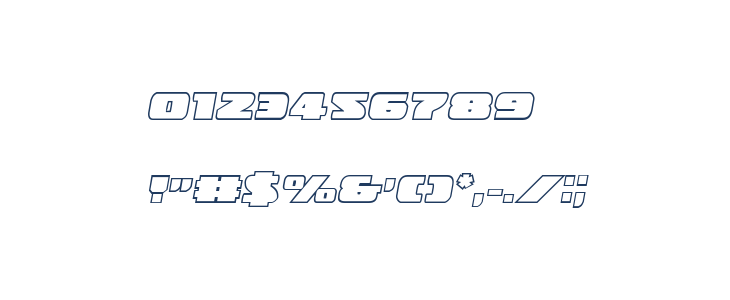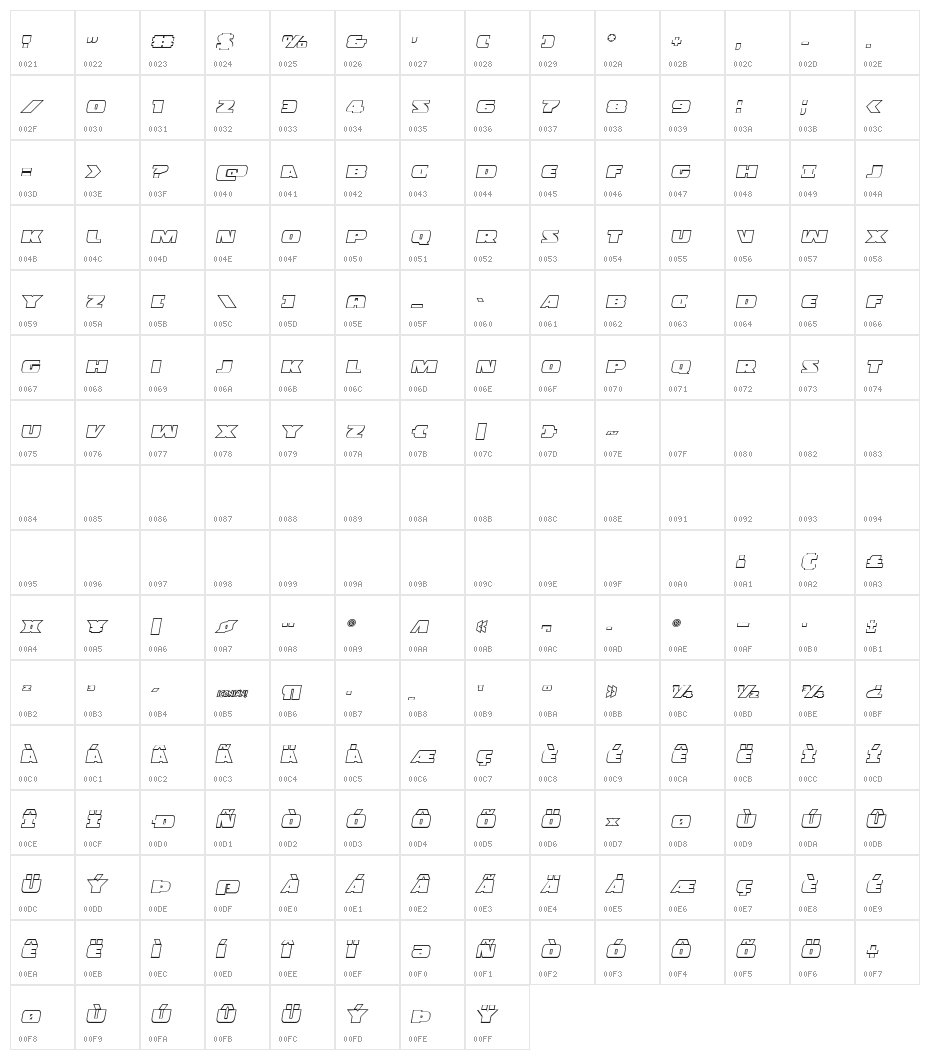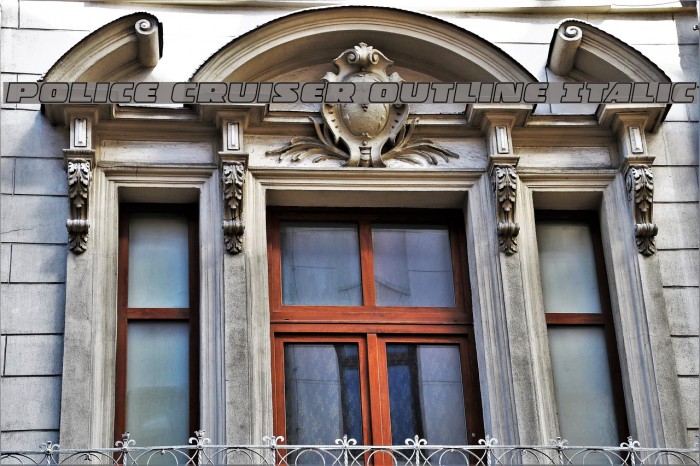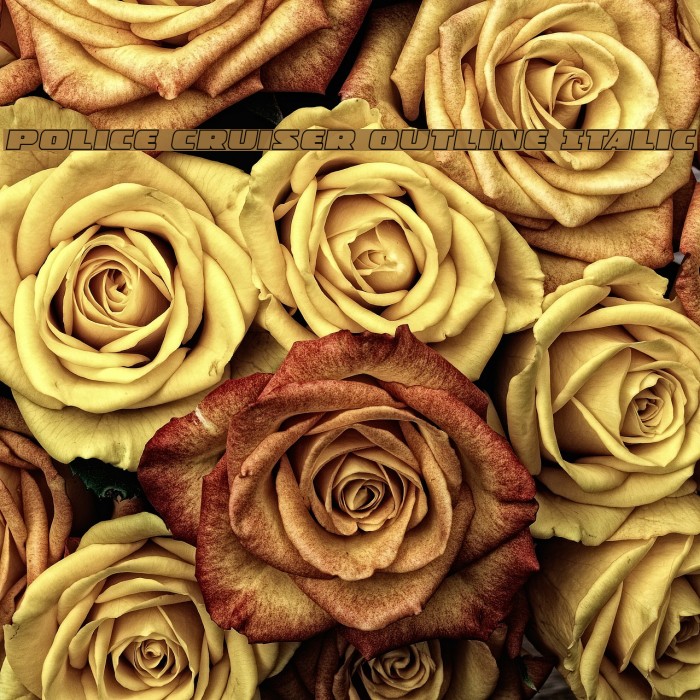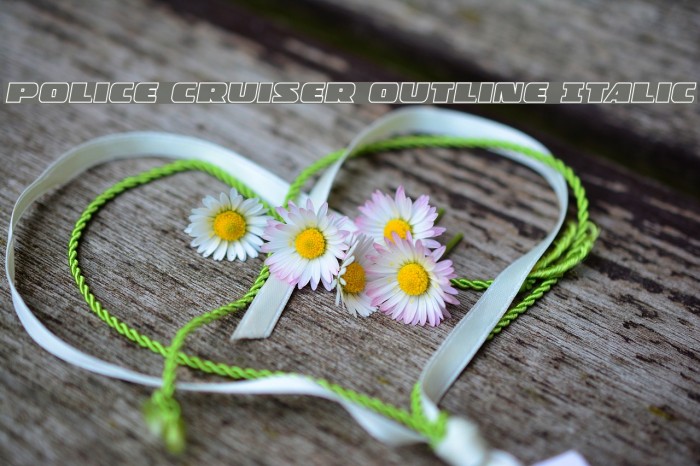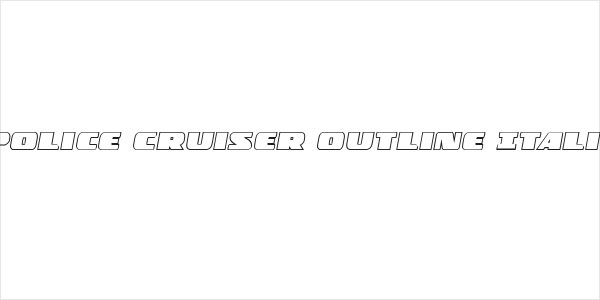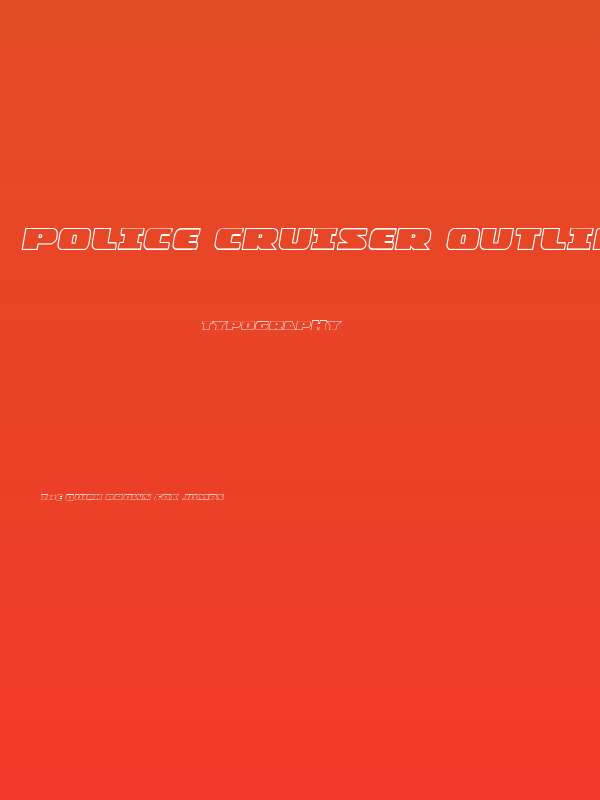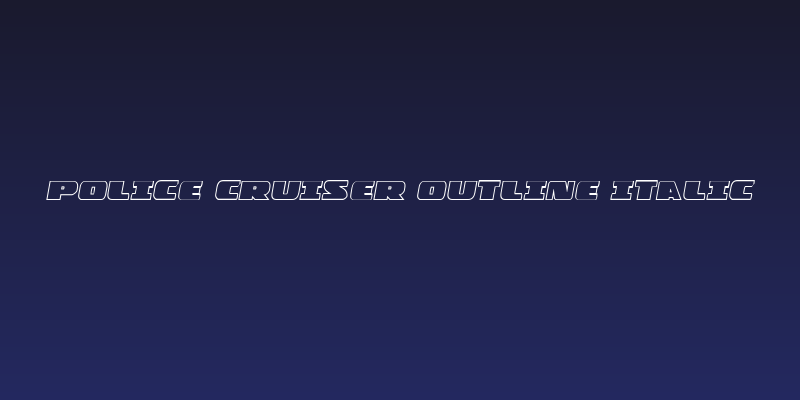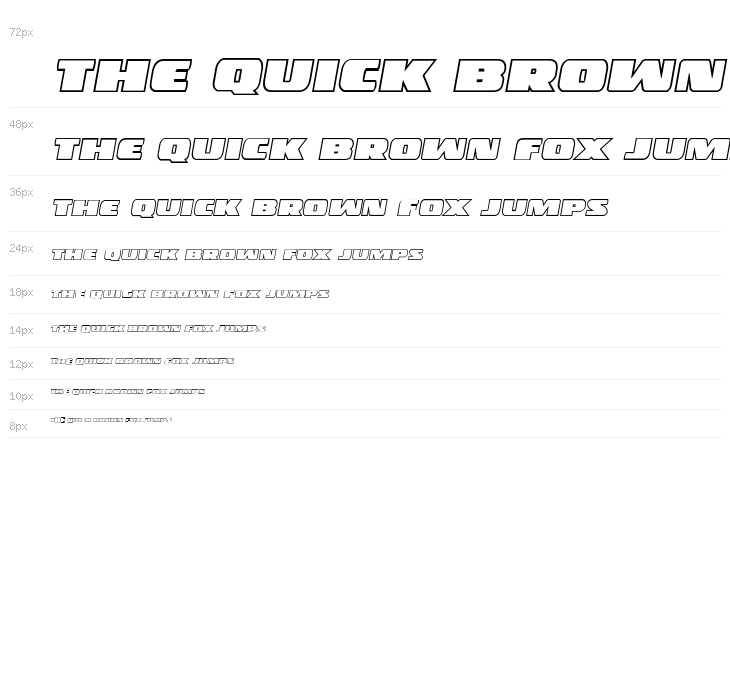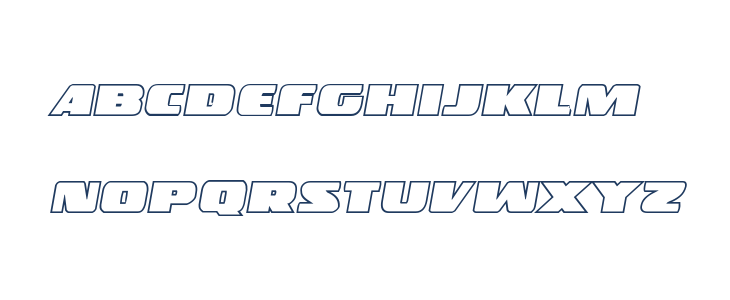
Police Cruiser Outline Italic Font
Police Cruiser Outline Italic Description
This font features a bold, italicized style with a distinct outline that gives it a three-dimensional appearance. The characters are uppercase and have a futuristic, dynamic look, making them ideal for attention-grabbing designs. The numbers and special characters maintain the same bold outline, ensuring consistency across all elements. The font's italic slant adds a sense of motion and speed, enhancing its modern and edgy aesthetic.
| Proposed Projects | Ideal for use in sports branding, automotive designs, video game titles, and any project requiring a modern, energetic look. |